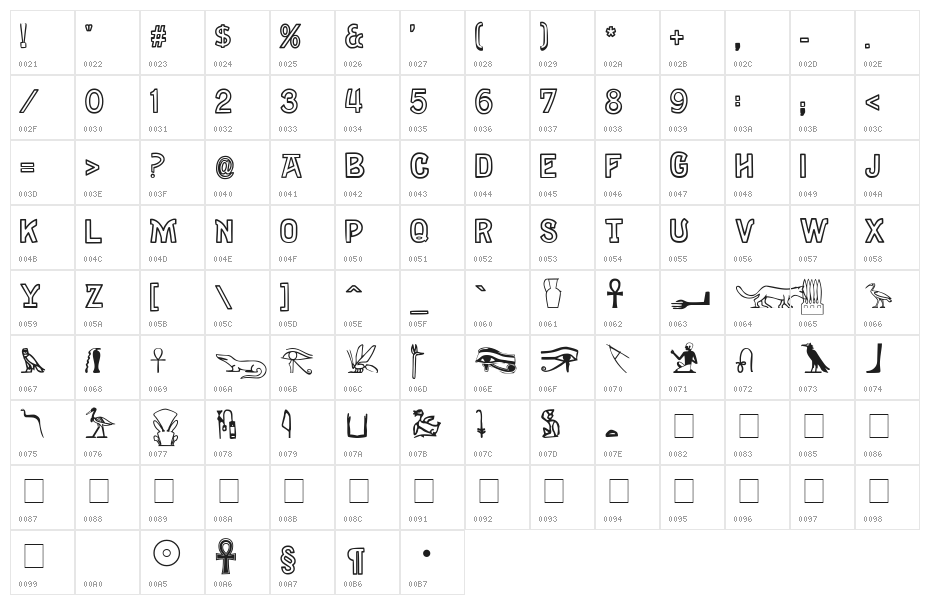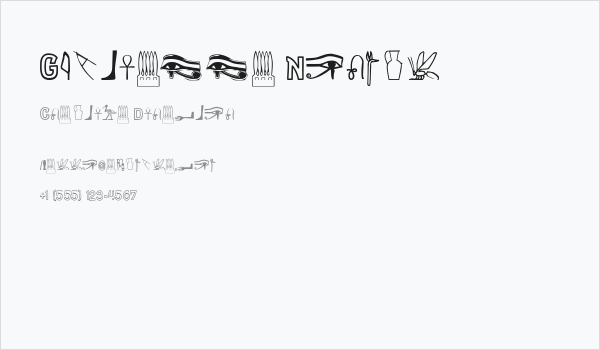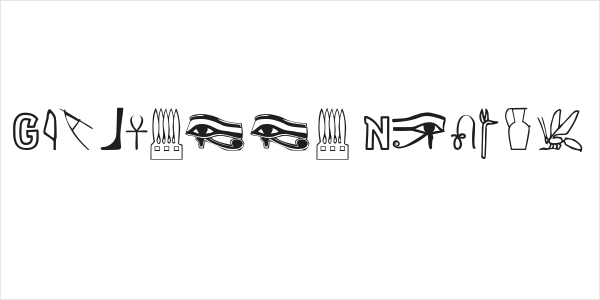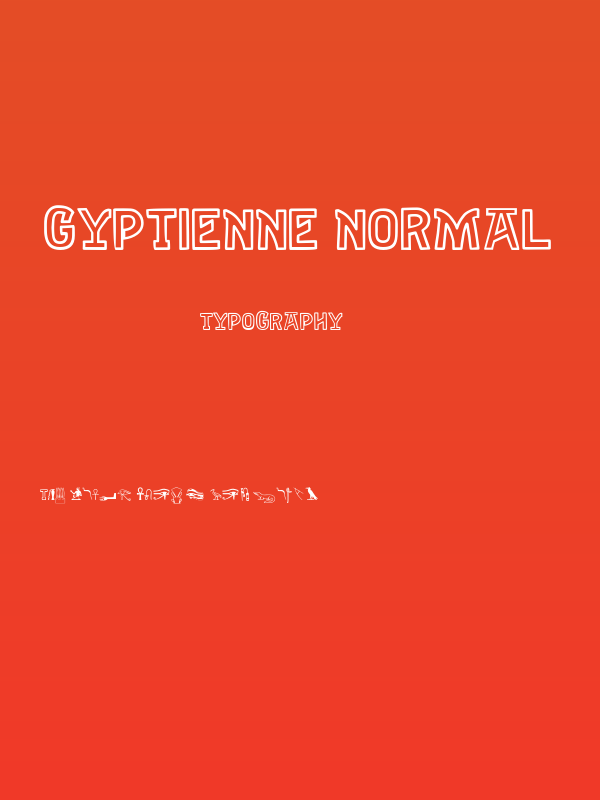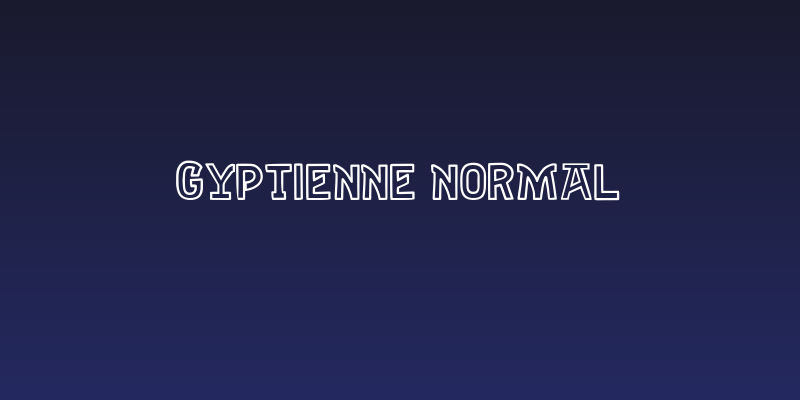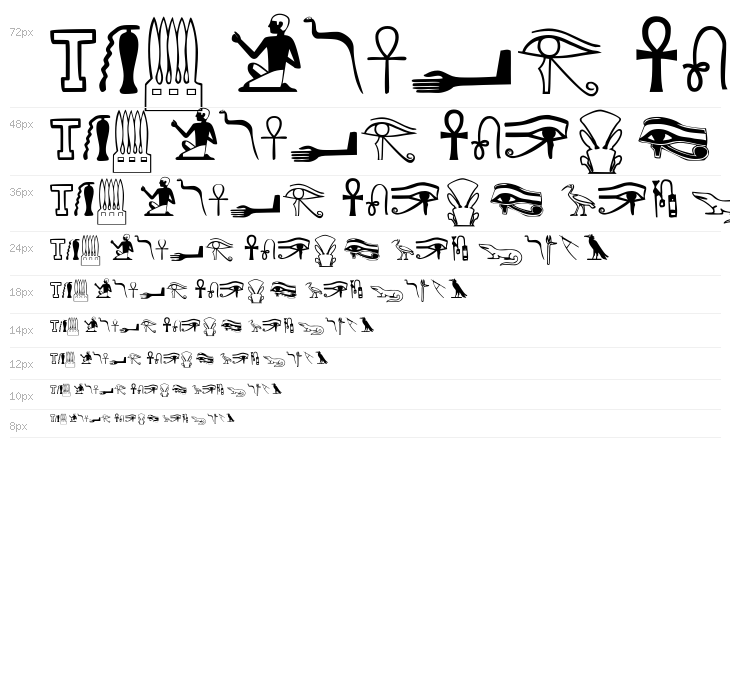
Gyptienne Normal Font
Gyptienne Normal Description
This font features a bold, outlined style with a modern twist, combining elements of traditional letterforms with a unique, artistic flair. The uppercase letters are characterized by their geometric shapes and clean lines, while the lowercase letters maintain a consistent style that complements the uppercase set. The numerals are equally bold and maintain the same outlined aesthetic, ensuring a cohesive look across all characters. The inclusion of hieroglyphic-like symbols adds an exotic and historical touch, making this font particularly distinctive. The special characters are designed to match the boldness and style of the alphabet, ensuring they fit seamlessly into any design. Overall, this font offers a striking and memorable appearance, perfect for making a statement.
| Proposed Projects | Ideal for branding, posters, and any project requiring a bold, artistic touch. |